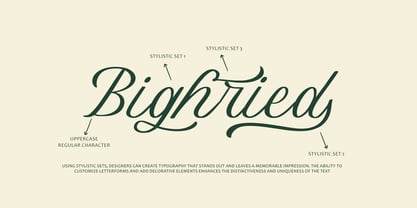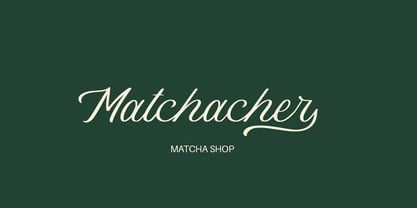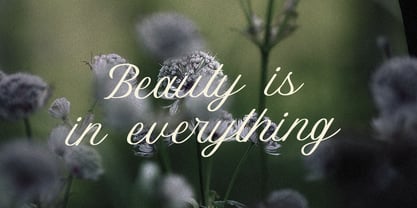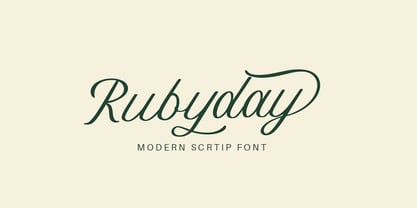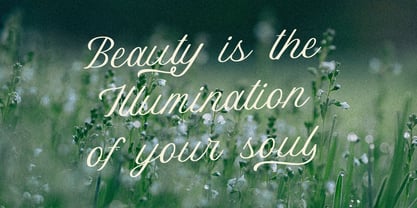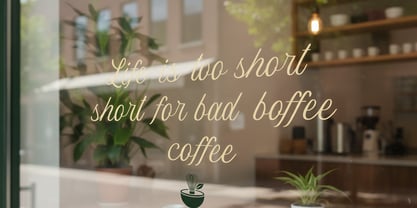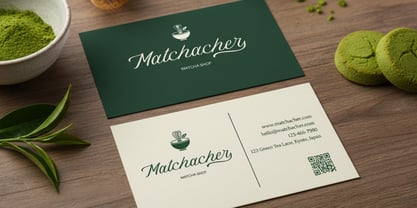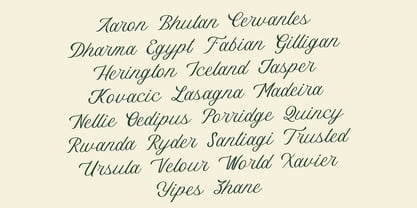
Rubyday
by Arendxstudio
The Rubyday Font Family was designed by Asep Rendi and published by Arendxstudio. Rubyday contains 1 styles. More about this family
Rubyday is a modern script typeface that radiates sophistication and charm. Created for projects that demand both beauty and precision, this typeface enhances your visual presentation with its graceful flow and refined form. Ideal for branding, invitations, packaging, quotes, or elegant logo designs, Rubyday combines timeless style with contemporary appeal. Its balanced rhythm and smooth character make it versatile for both print and digital work — bringing a sense of harmony and class to every word you create. Features : Uppercase and lowercase characters Numerals and Punctuation Accents (Supports Multilingual Characters) PUA Encoding
Designers: Asep Rendi
Current Foundry: Arendxstudio
Rubyday